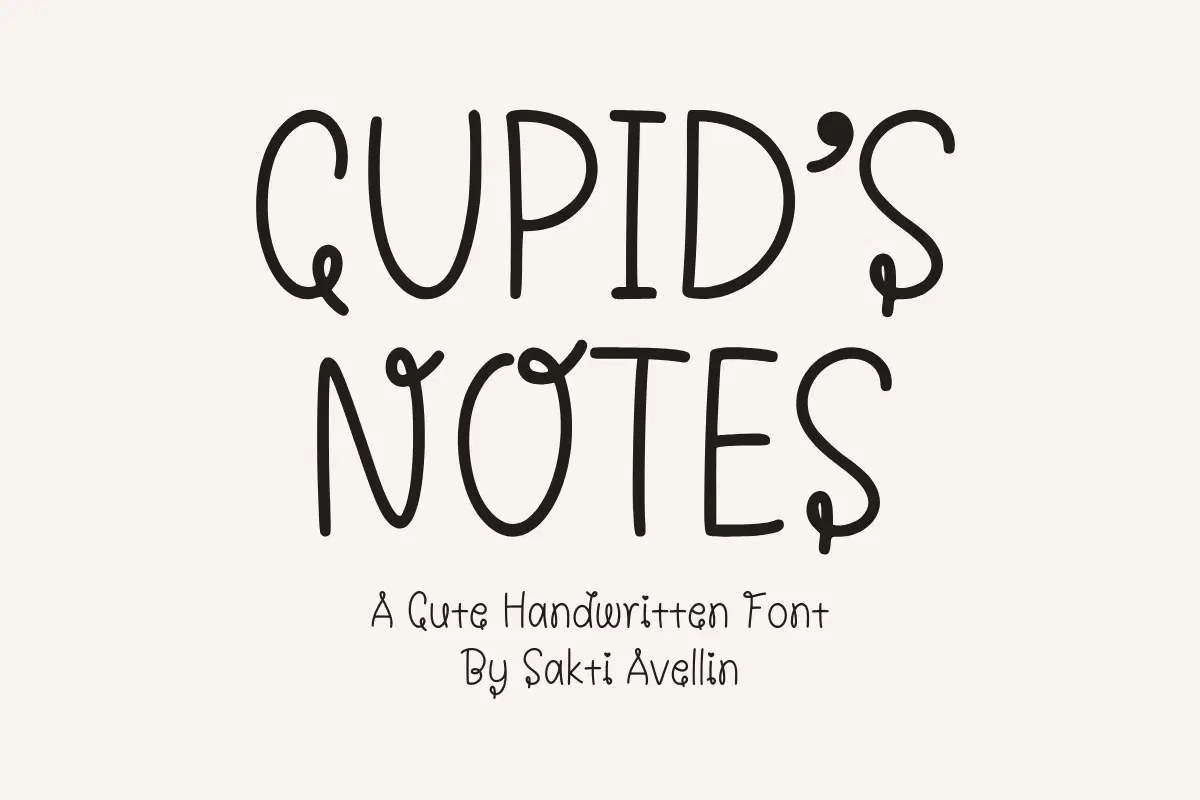
Cupid's Notes - Cute Handwritten Font
Cupid's Notes is a beautifully cute handwritten font with a distinct, playful scribble style. This charming script font features rounded, slightly irregular characters, perfect for adding an authentic, personalized touch to your designs. It is ideal for Valentine's Day crafts, kids' branding, heartfelt greeting cards, casual logos, charming social media posts, and any project that needs a sweet, whimsical vibe. Its easy readability and engaging form make it a wonderful display typeface for crafters and designers alike. Capture the essence of a love note with this genuinely delightful handwriting font!